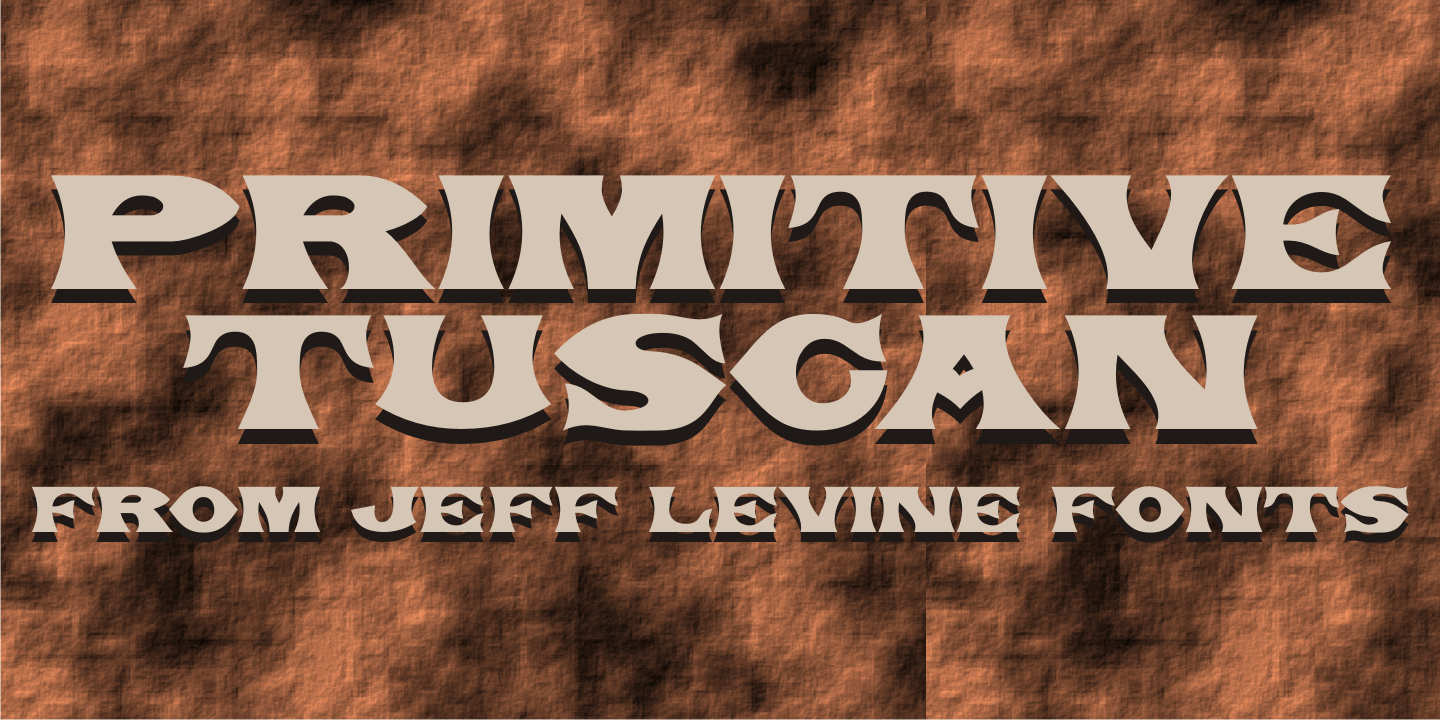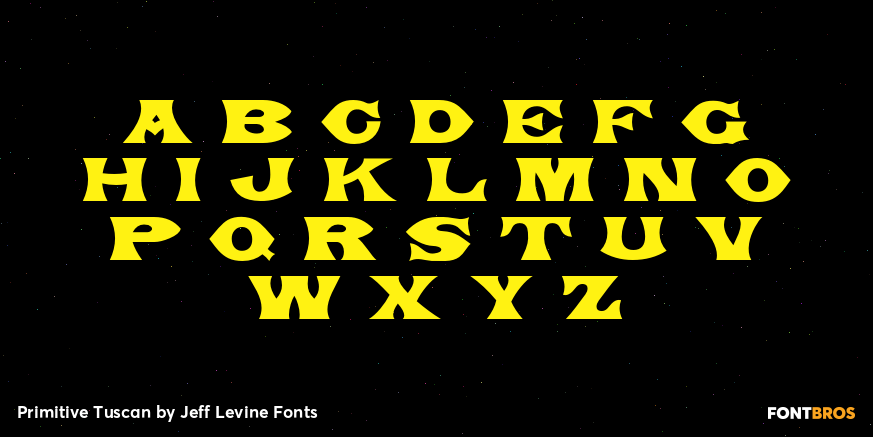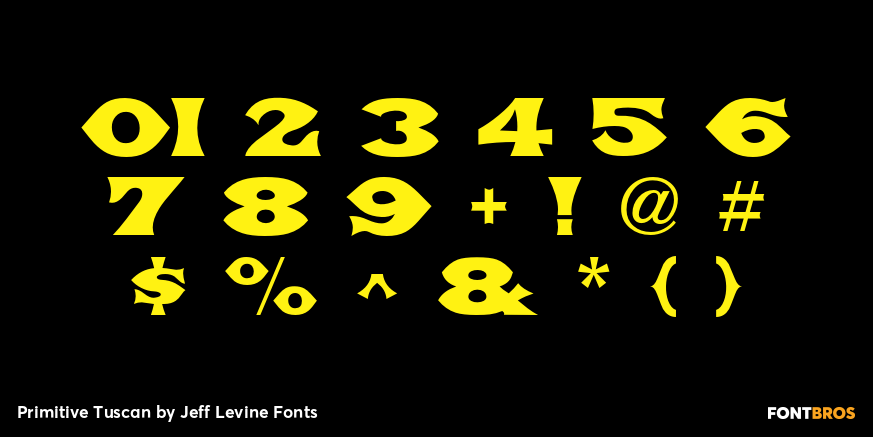
Primitive Tuscan
Re-drawn from examples of vintage wood type, Primitive Tuscan JNL captures the essence of early letterpress printing of the 1800s; the styles of which were most closely associated with the Old West.